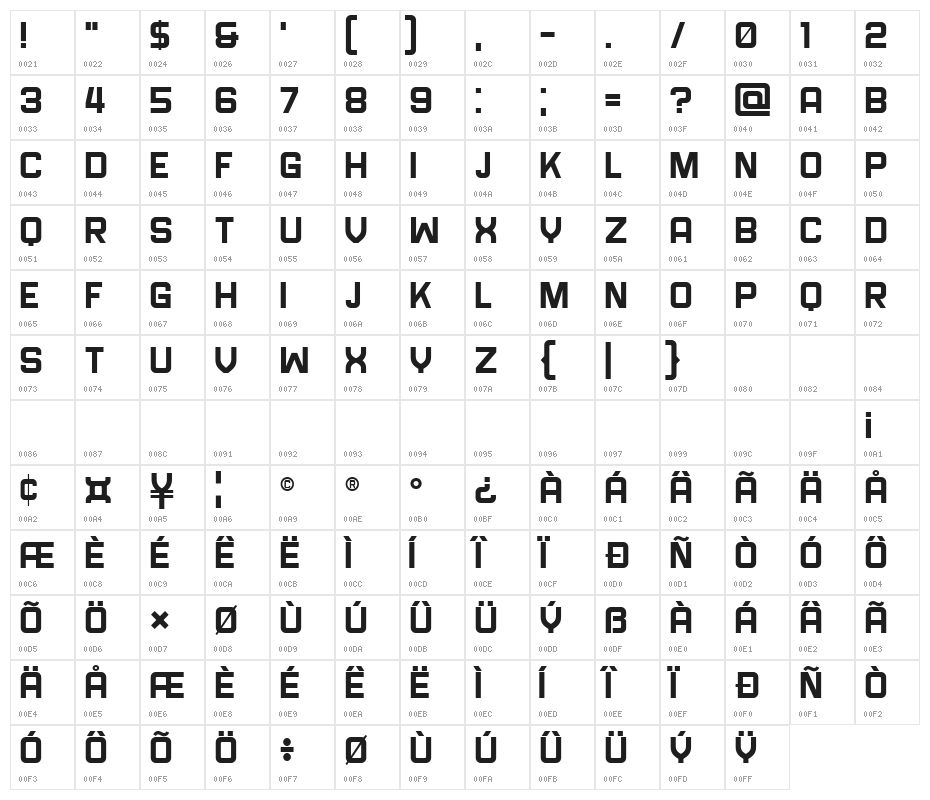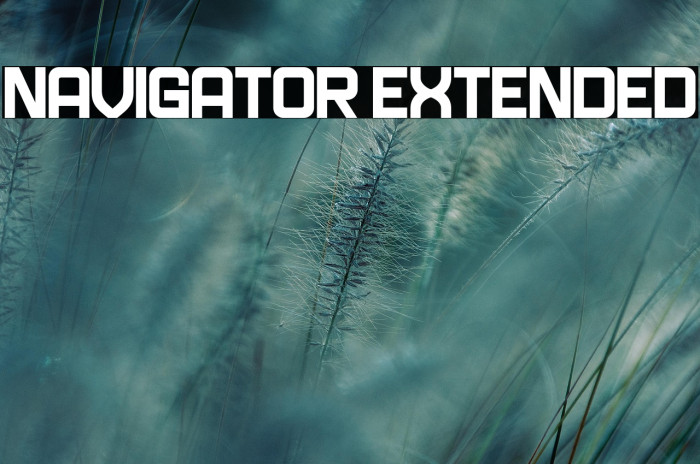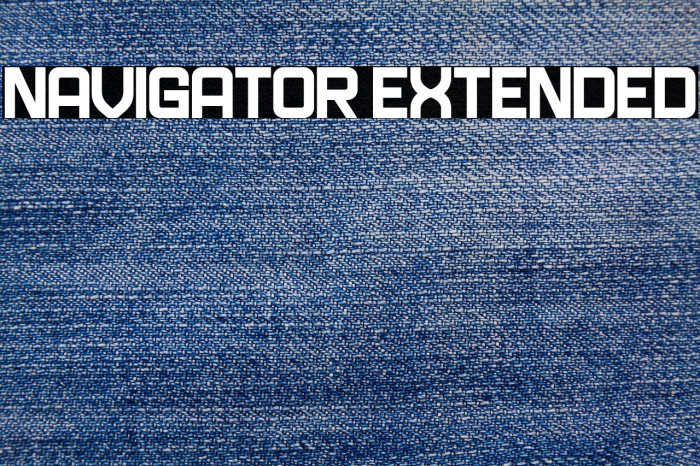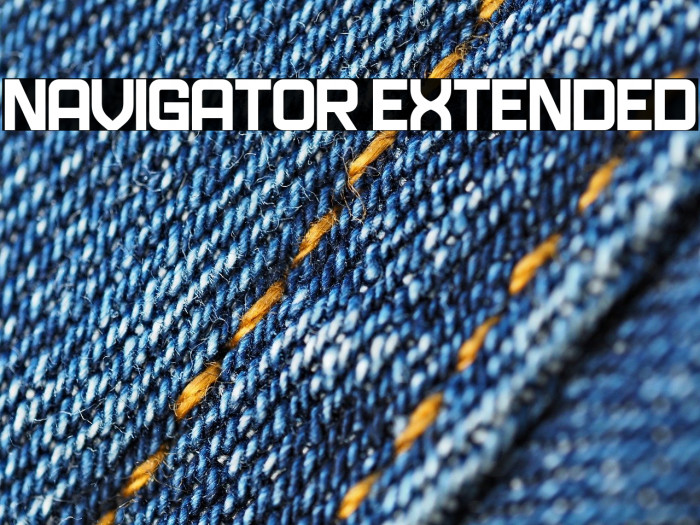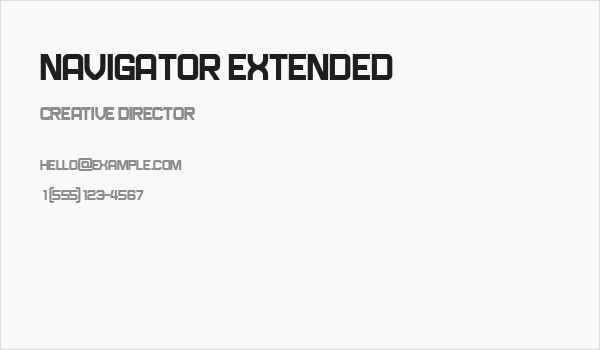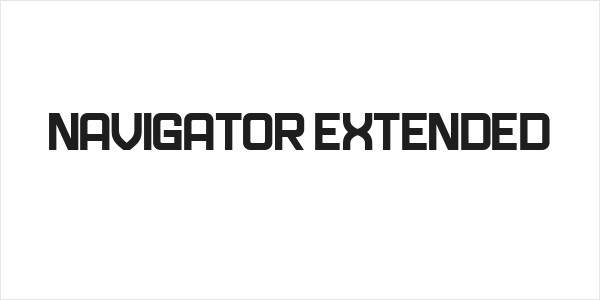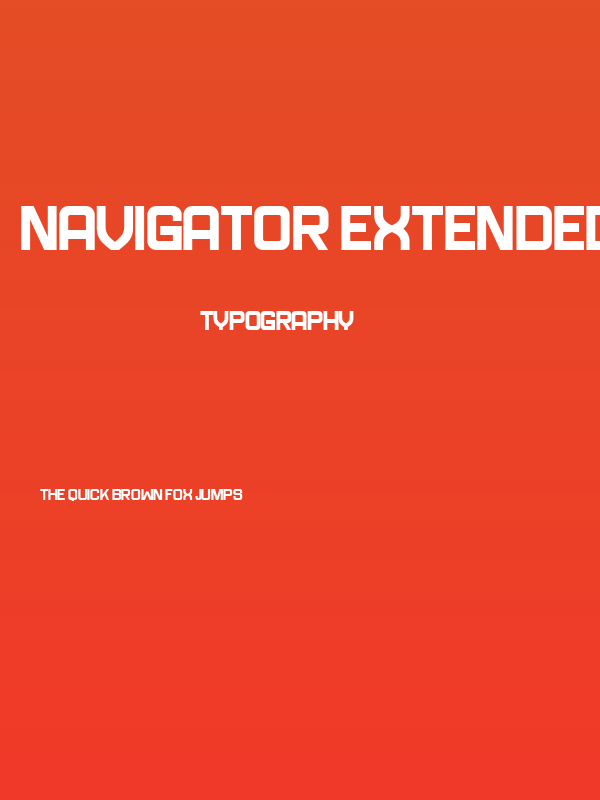
Navigator Extended Font
Navigator Extended Description
This font features a bold and geometric design, characterized by its strong, angular lines and uniform stroke width. The uppercase letters are crafted with precision, offering a modern and industrial feel. The numerals are equally robust, maintaining the font's consistent weight and style. Special characters are designed to match the overall aesthetic, providing a cohesive look across all glyphs. The font's structure is clean and straightforward, making it suitable for various design applications where clarity and impact are essential.
| Use Case | Headlines, Logos, Signage |
| Proposed Projects | Ideal for branding, signage, posters, and digital interfaces where a strong, modern presence is desired. |